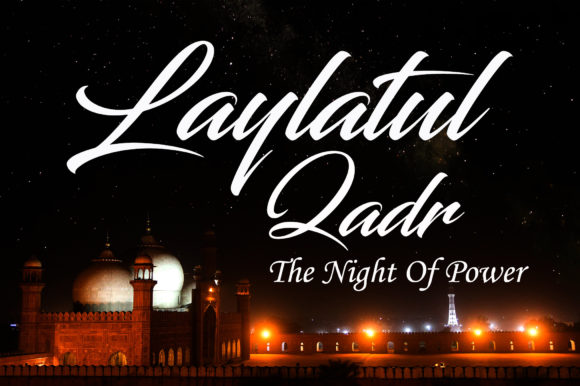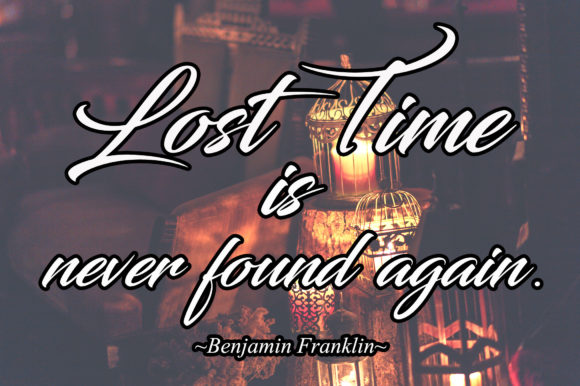
Ramadhan Font
db-ku.com - Script & Handwritten -- Ramadhan is an exclusive handwritten font with a contemporary atmosphere and impeccable form. Not too thin and not too thick, balanced and varied, this font was designed to enhance the beauty of your projects. This font will be ideal for writing wedding invitations, cards, or any other design that may need a romantic, personalized touch! This font has very neat kerning.